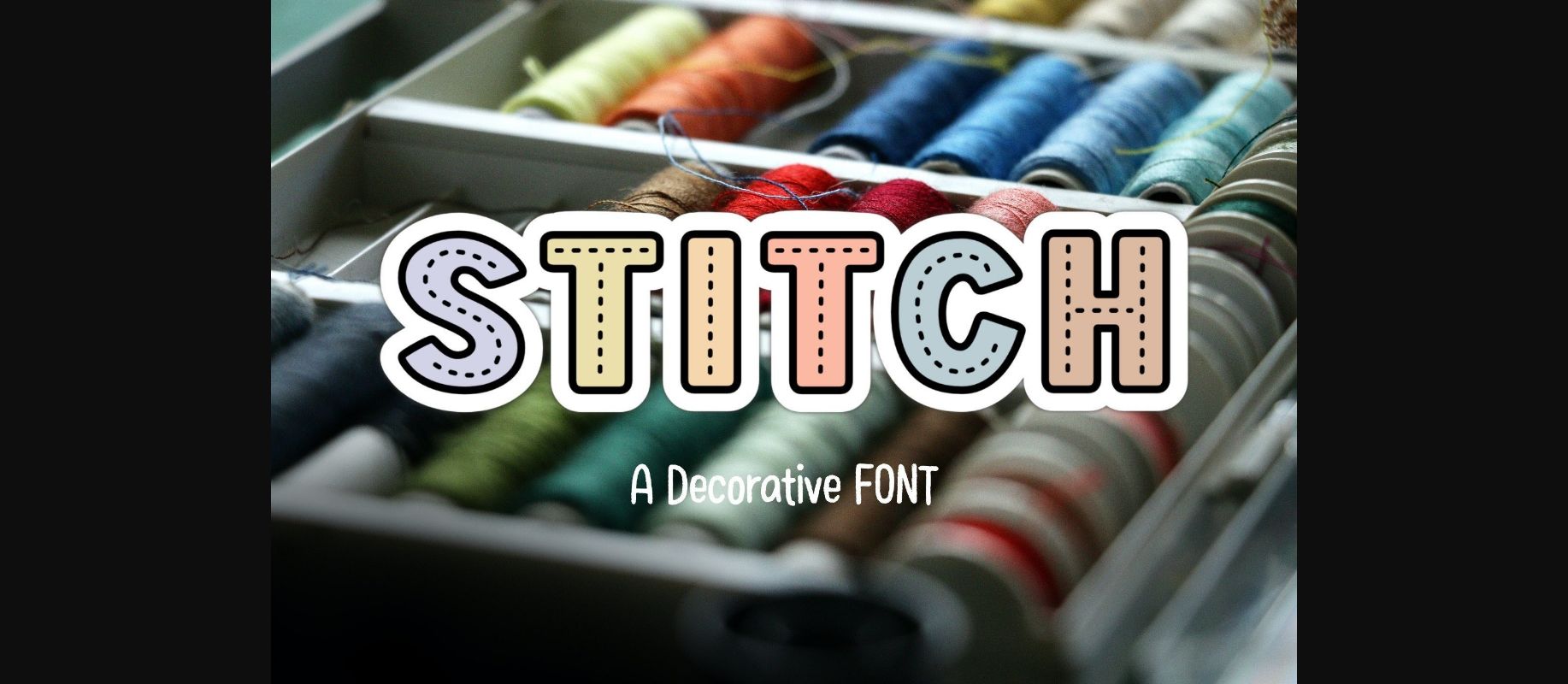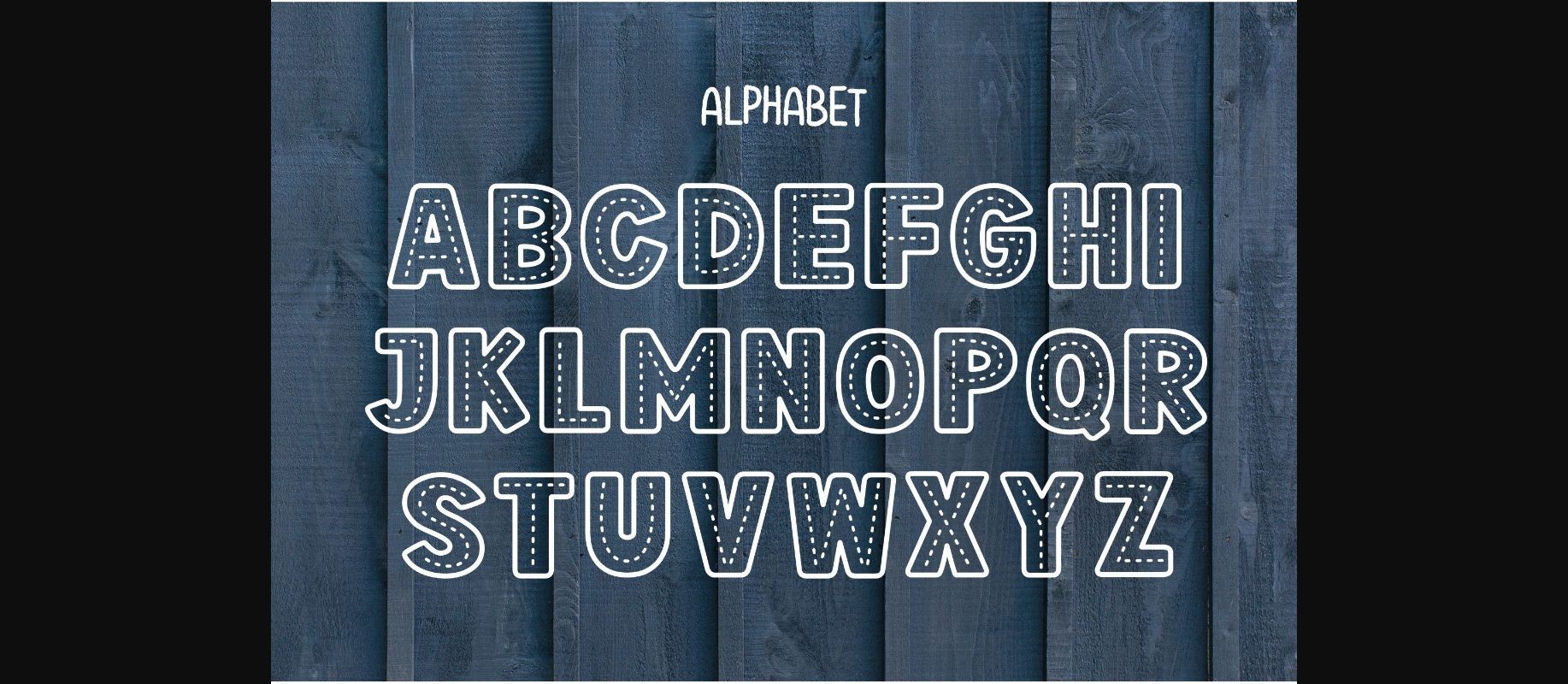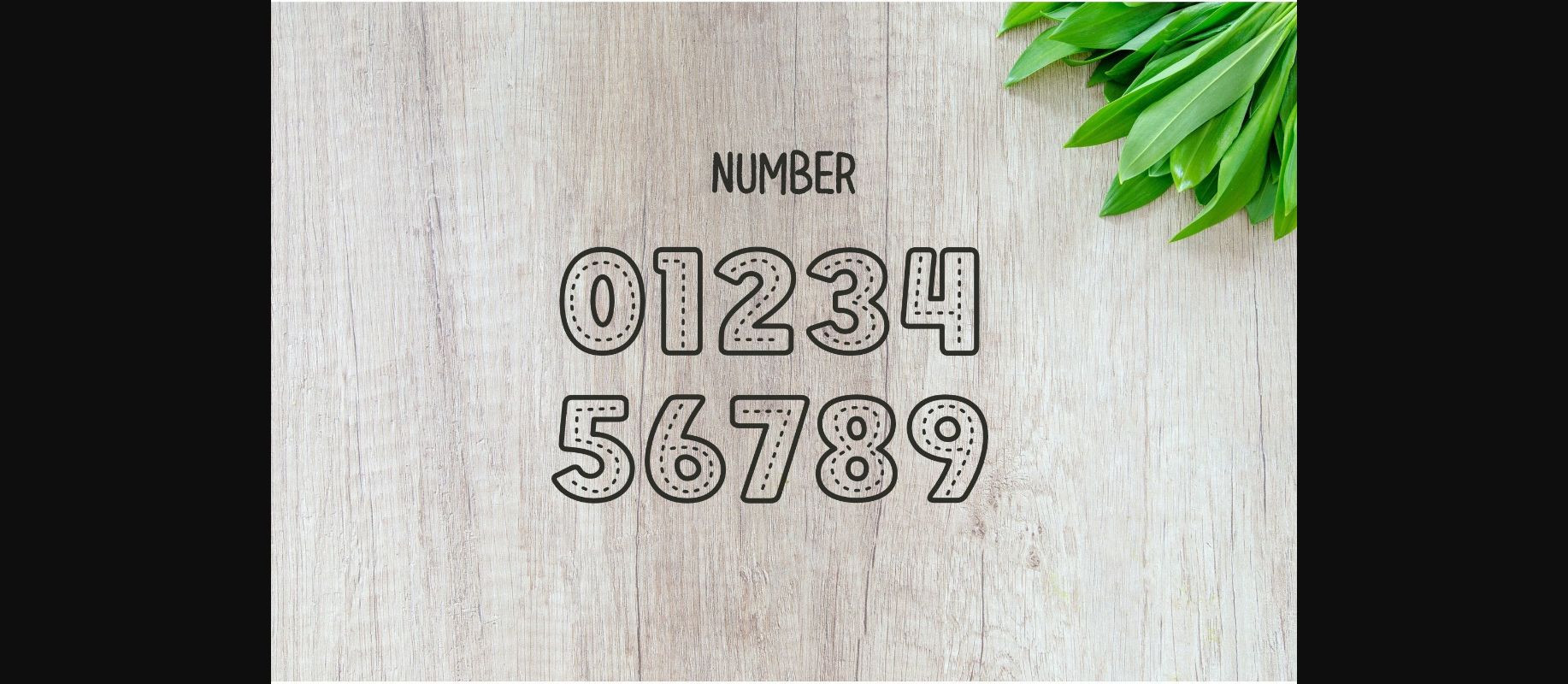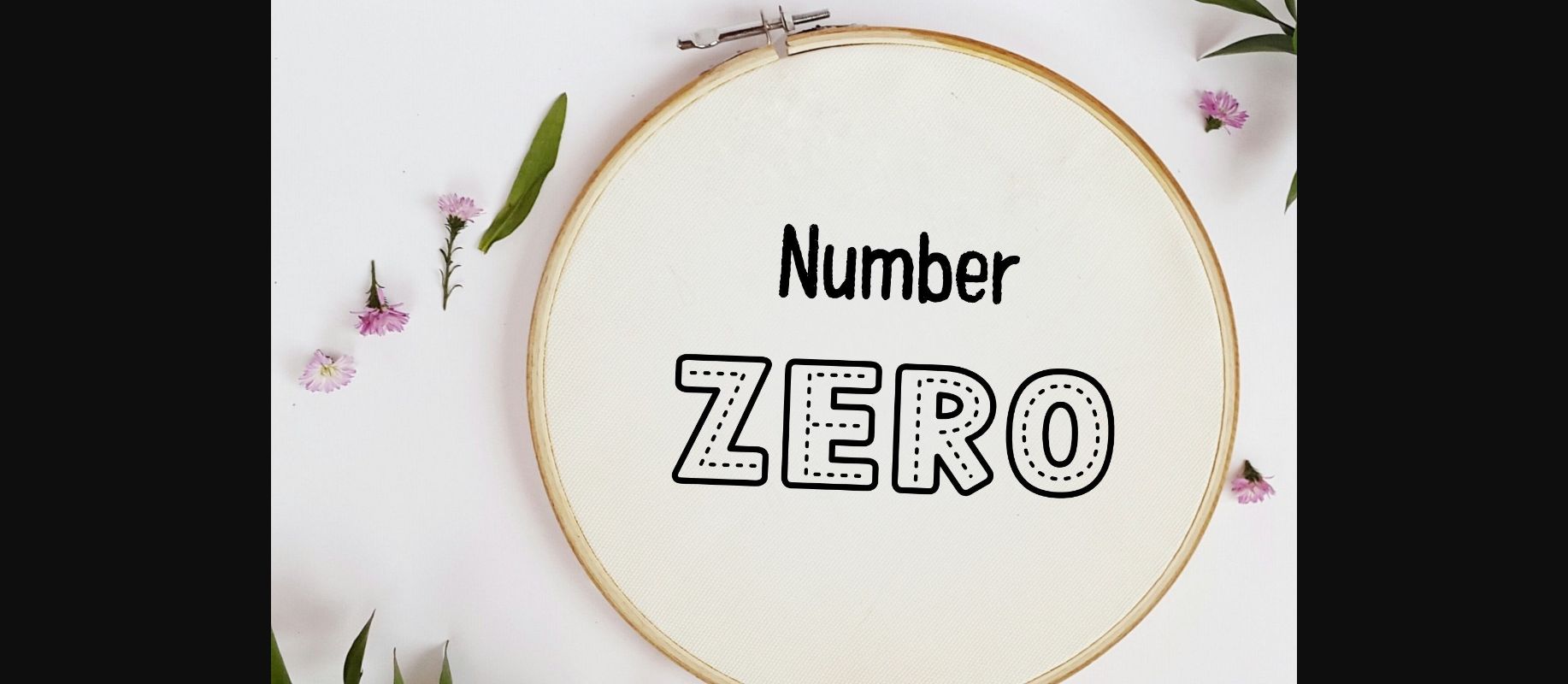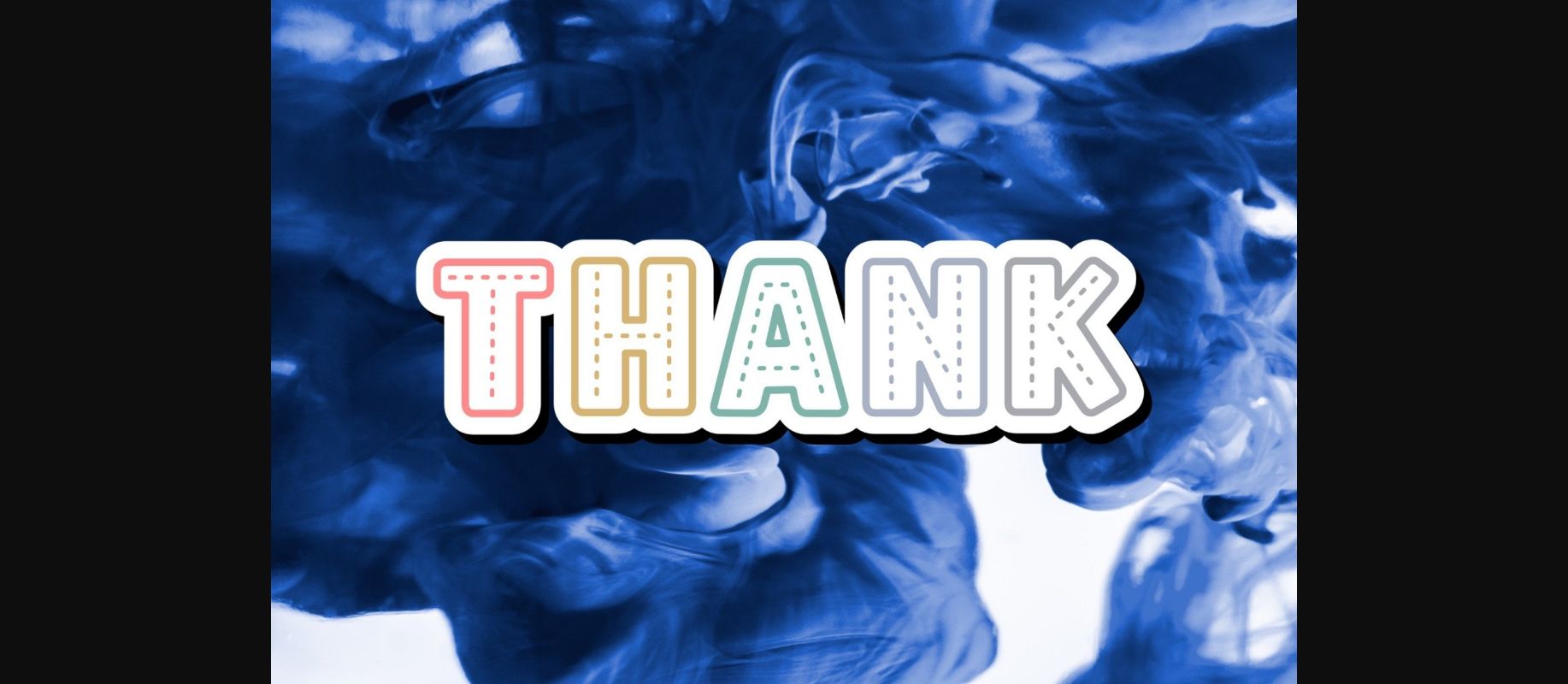
Stitch is a beautiful decorative font perfect for your logos, branding, social media posts, crafty DIY projects, and many more! Add it to your fonts library, and it will become an instant favorite!